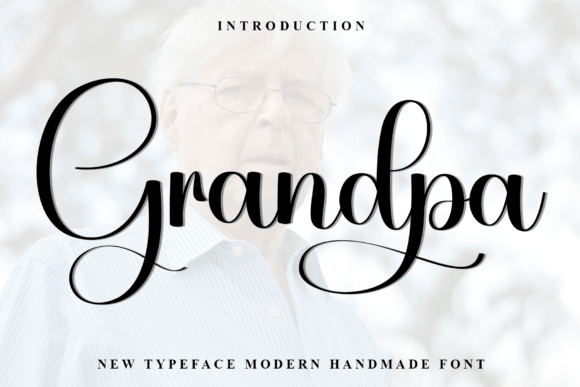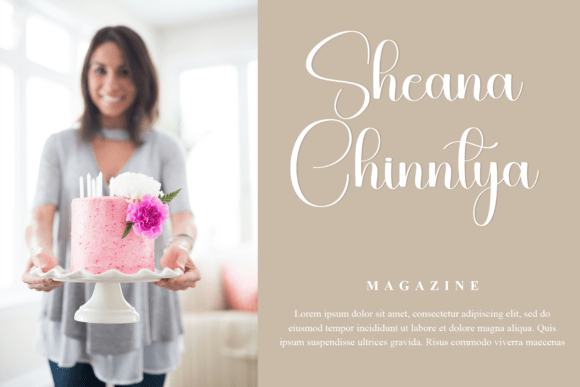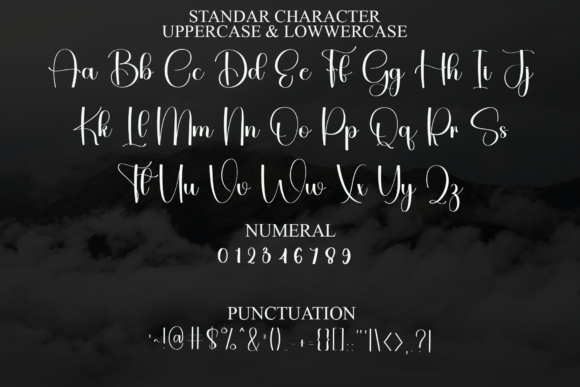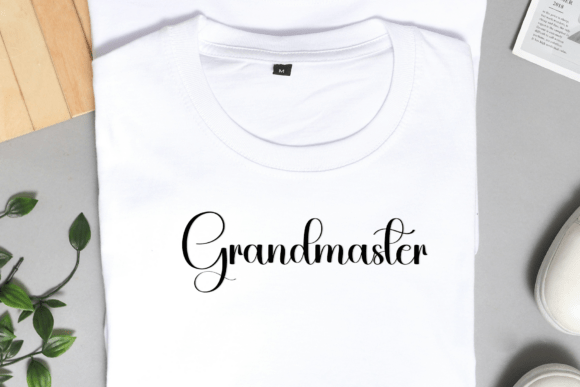
Grandpa Font: A Cute & Playful Handwritten Font for Invitations
About the Grandpa Font
Experience the unique personality of Grandpa Font, a font designed for impact. Grandpa is a casual and creative font that exudes warmth and friendliness. Its round, playful strokes create a relaxed and approachable feel, perfect for personal projects, invitations, and social media graphics. The font’s charming, hand-drawn aesthetic adds a fun and unique touch to any design.
Grandpa Font’s playful charm makes it ideal for projects requiring a friendly, approachable feel. It works exceptionally well in headlines, short-form text on posters and invitations, and social media content. Consider it for branding associated with handmade crafts, children’s products, or cafes. However, its casual nature makes it unsuitable for body text or UI elements where legibility over extended lengths is crucial.
Pairing Grandpa with a clean sans-serif like Open Sans for body copy provides excellent contrast and readability. For a more playful combination, consider pairing it with a script font like Great Vibes for a touch of elegance. Alternatively, a geometric sans-serif, such as Montserrat, offers a modern counterpoint to Grandpa’s hand-drawn aesthetic.
Grandpa Font’s overall personality is best described as cheerful and approachable, conveying a sense of warmth and nostalgia. Its relaxed style makes it perfect for designs needing a friendly, personal touch.